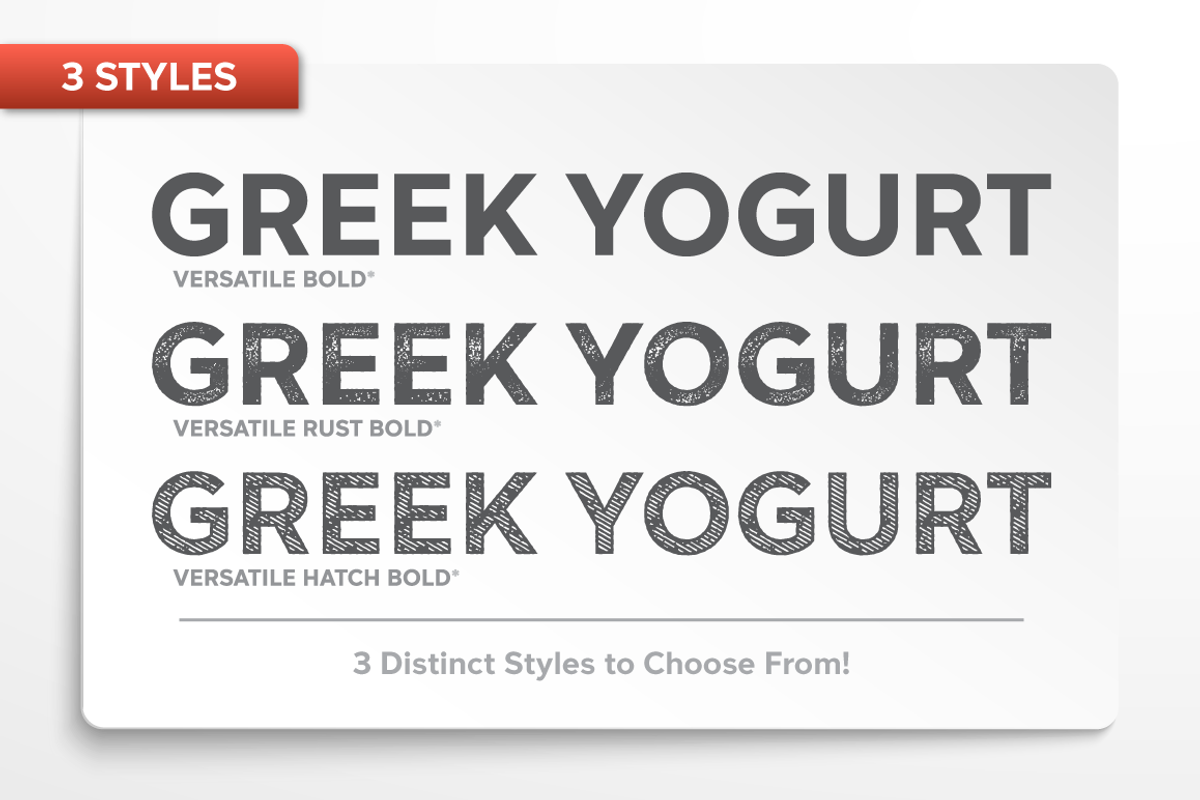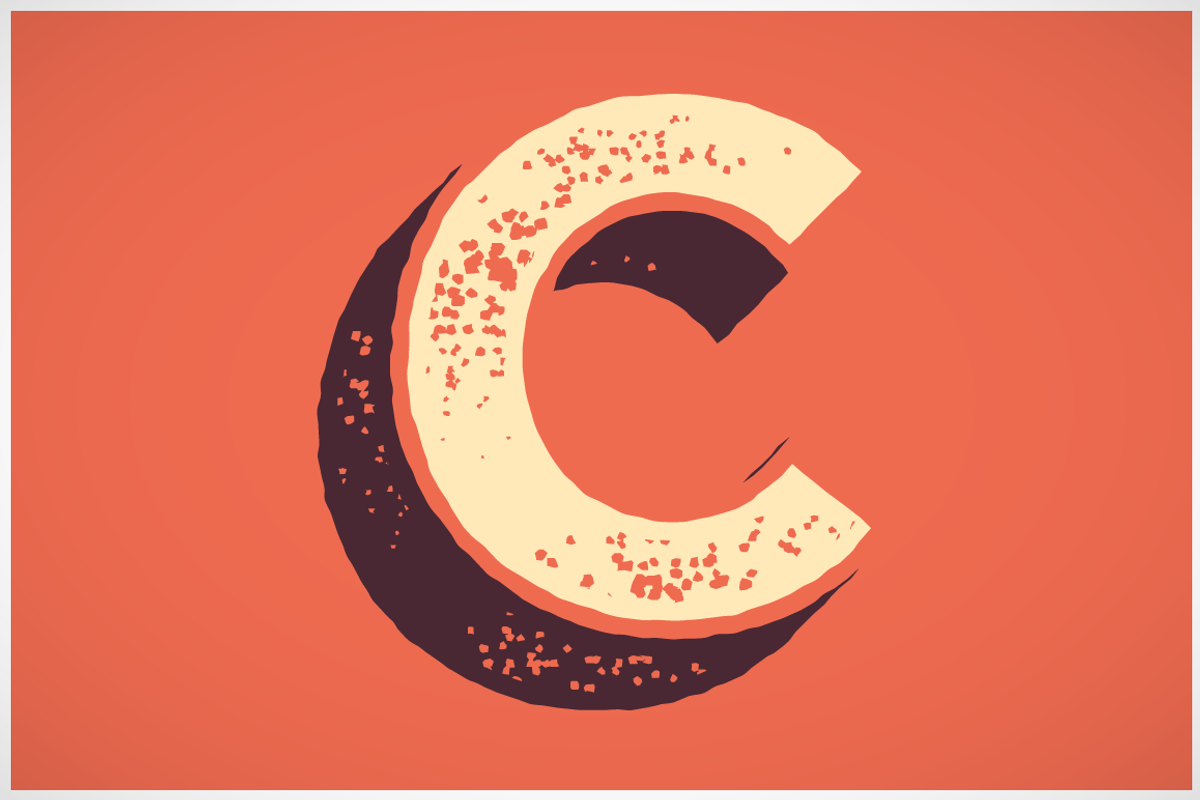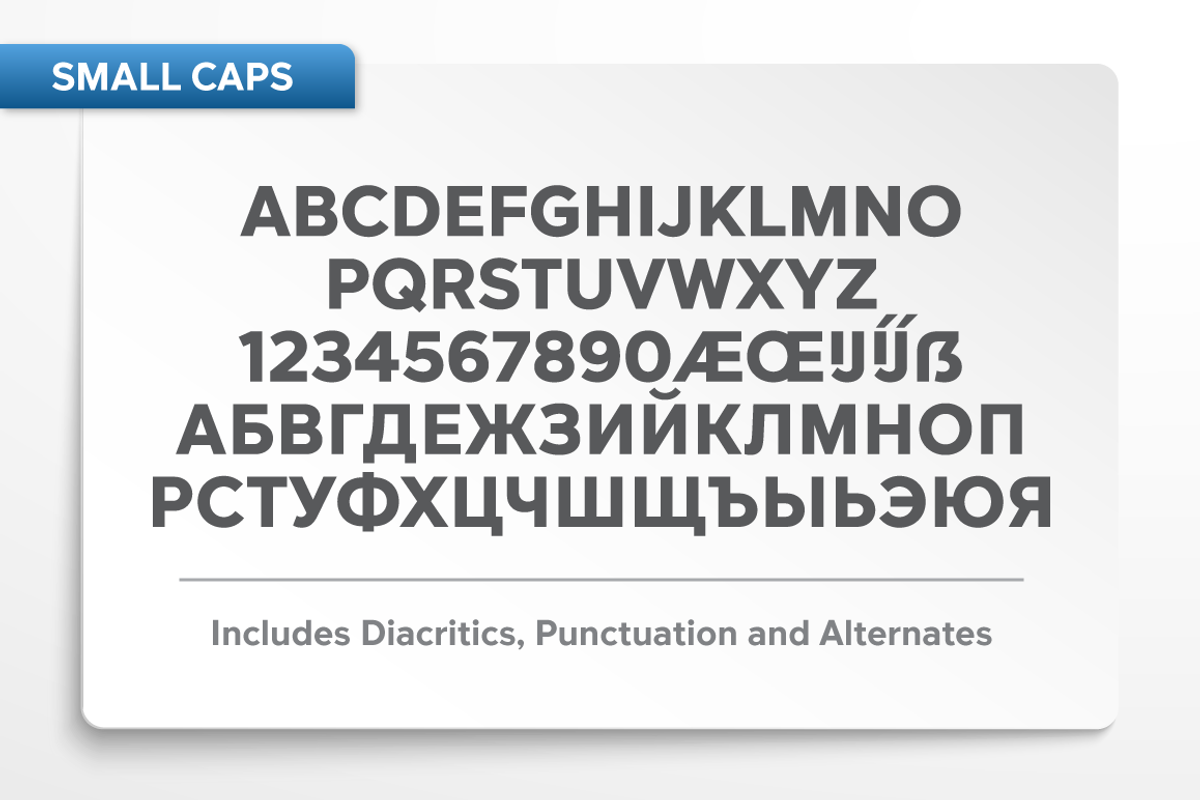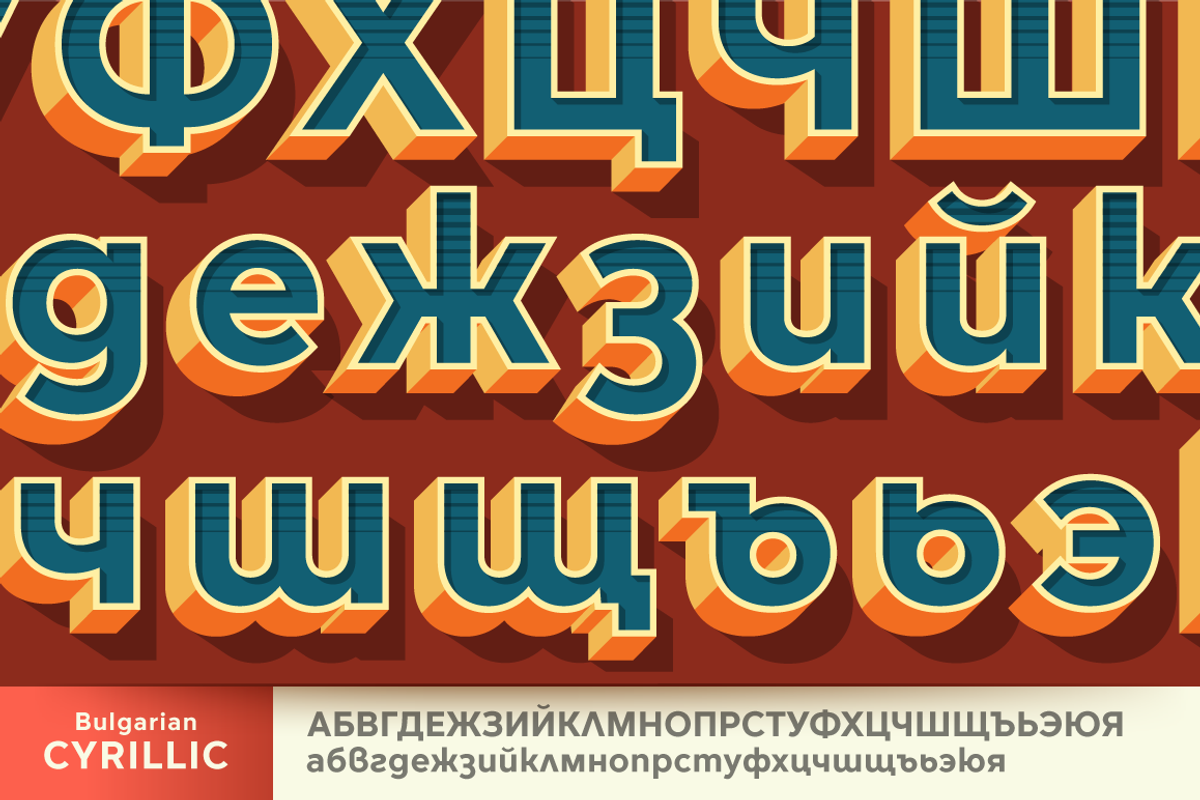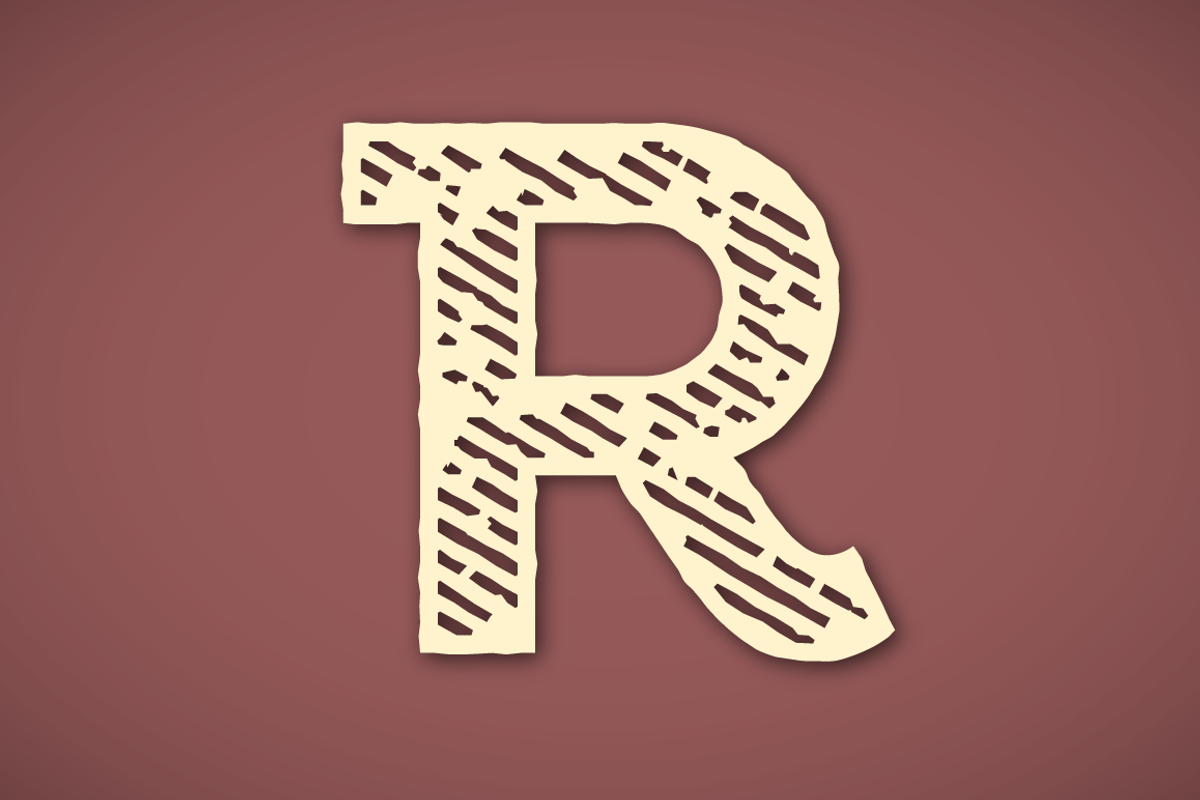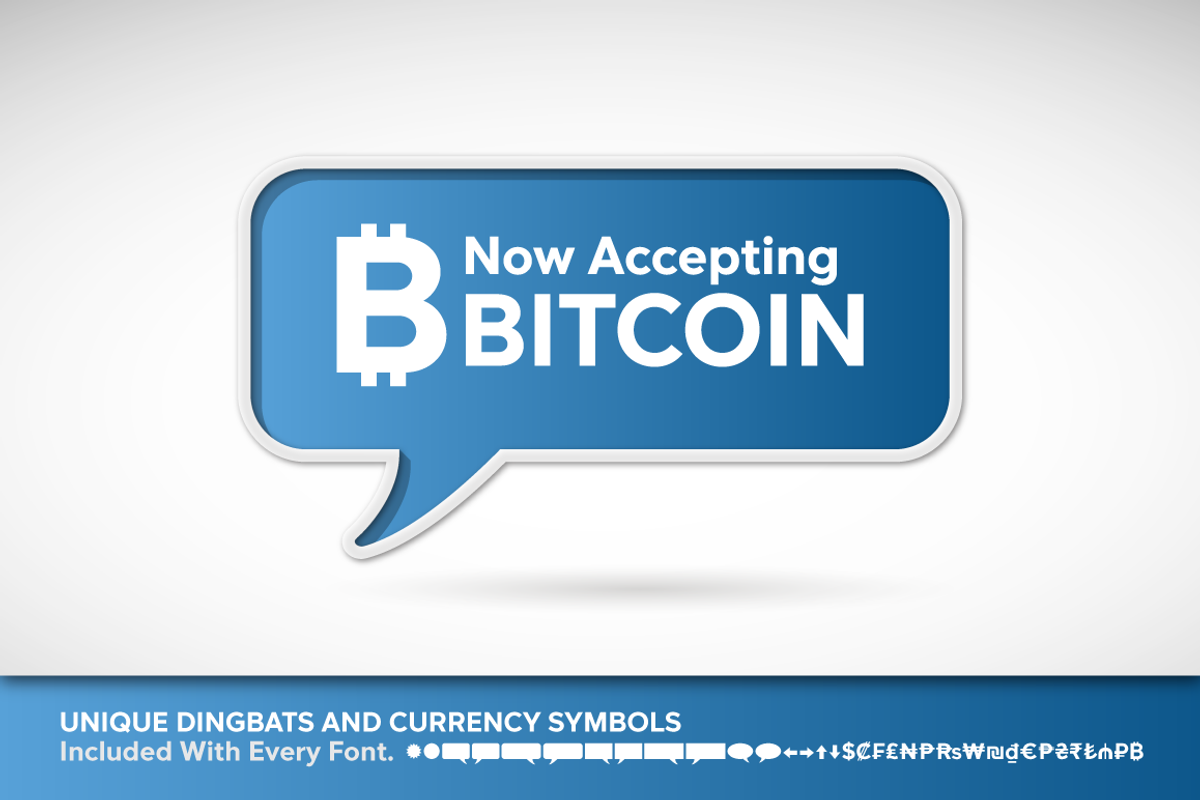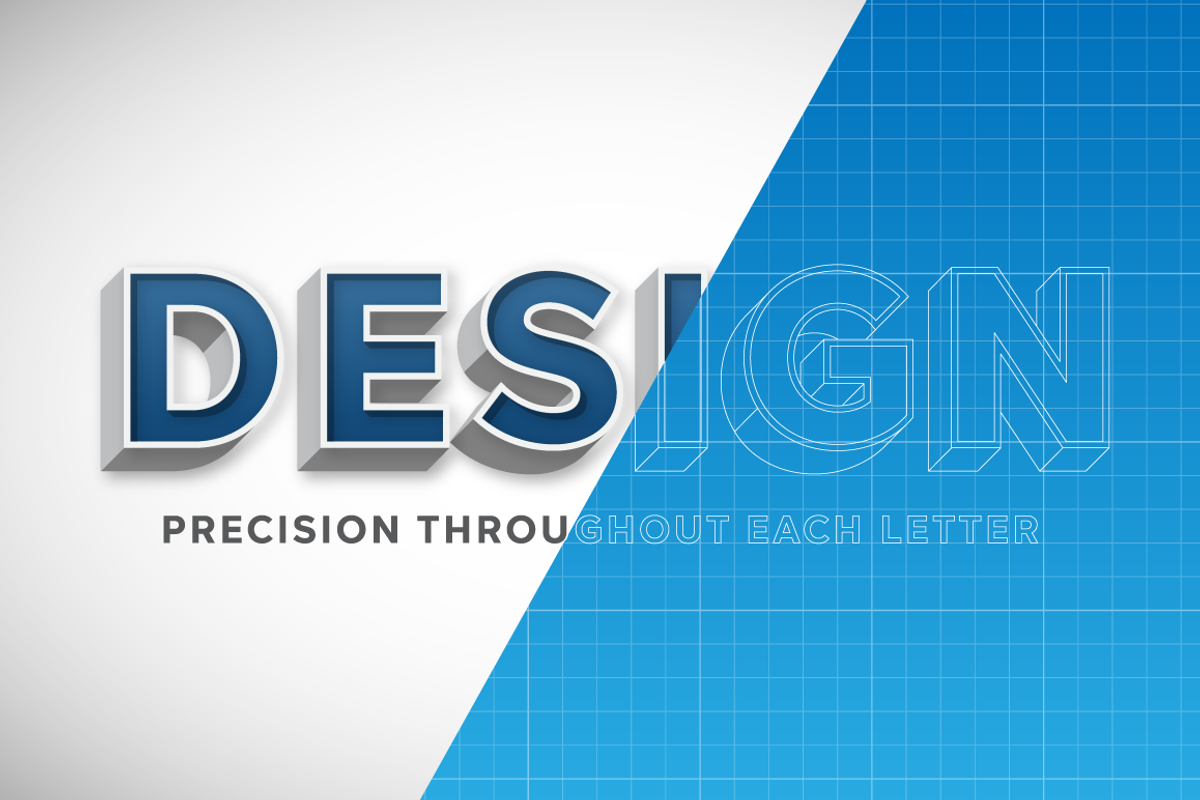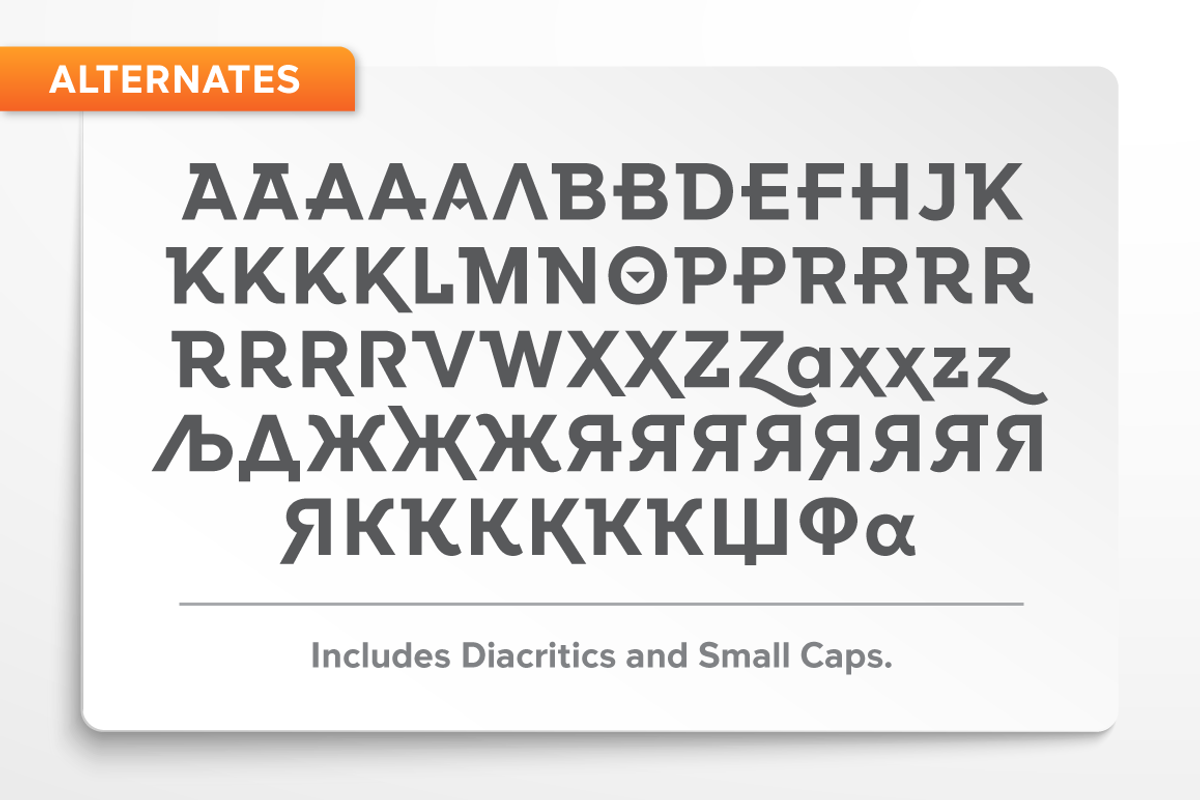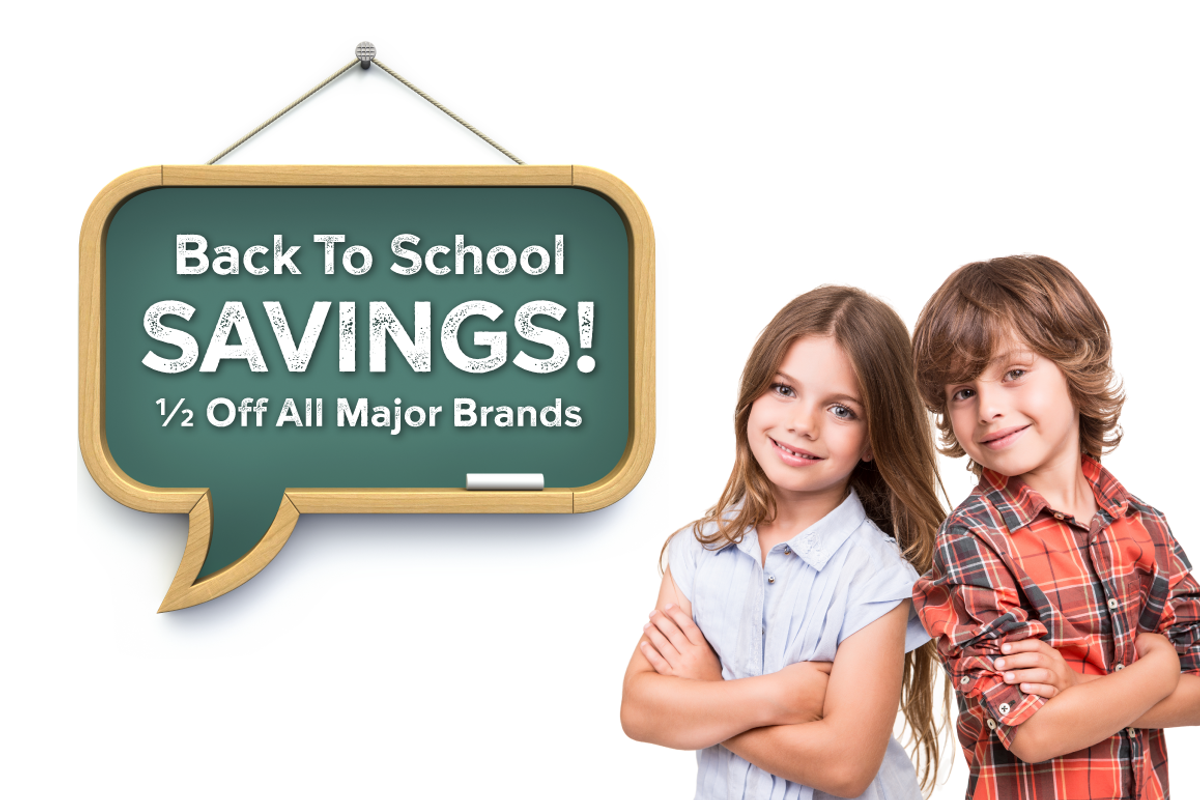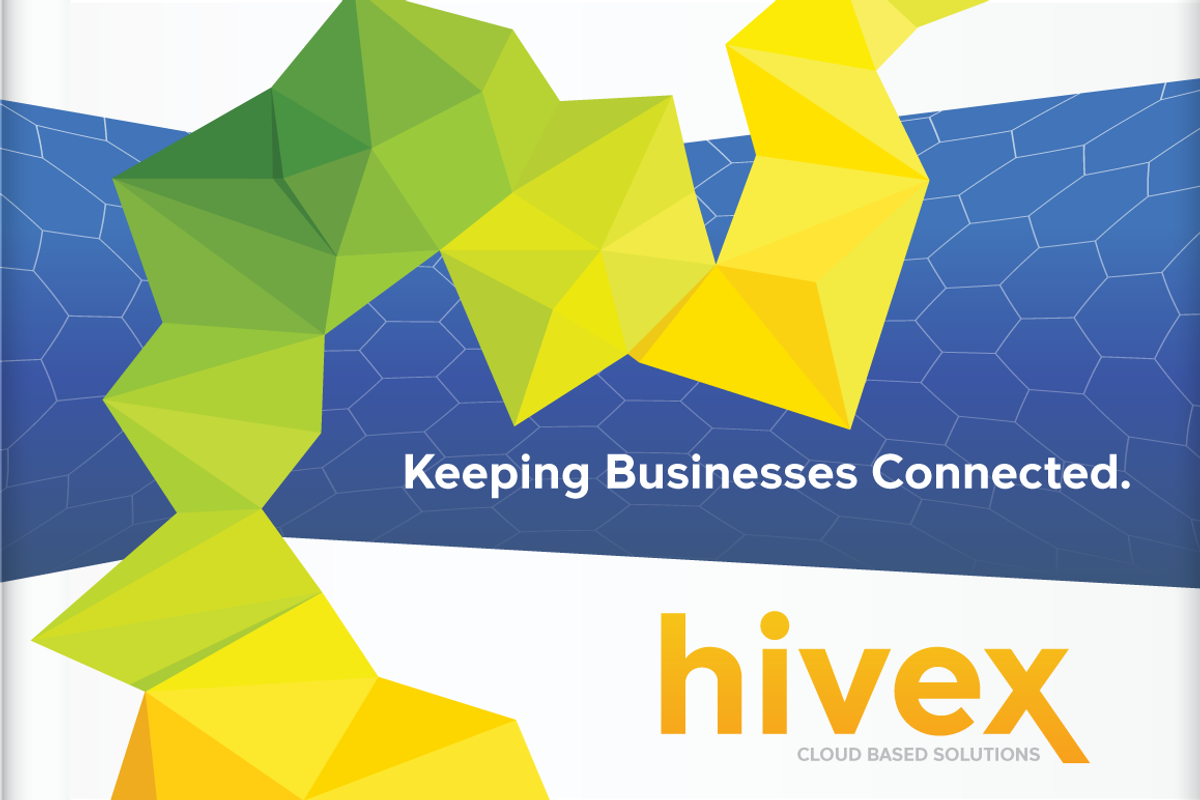
Versatile - 21 Font Designer Bundle!
From the designer who brought you the popular Desire font comes his latest creation, Versatile. Versatile is a designers dream come true. This modern Sans Serif font has everything you would want for making classic to modern style logos. Hundreds's of alternates (including small cap alternates!), massive language support, shadow layers for an insane amount of options and so much more!
Versatile Bold is the first entry into the Versatile type family of weights & italics from Borges Lettering. While other sans-serif fonts tend to be rigid and cold, Versatile stands out with it's warm and natural feel. It's generous x-height aids in its legibility and function, and the forms are modern yet classic allowing this font to live up to its name as a truly versatile workhorse for your next design or layout.
Versatile contains 3 different styles: Bold, Hatch and Rust. Each style contains one main font and six display sub-families which gives you the ability to stack seven layers to create interesting and eye-catching designs that will make your customers take notice. Playing with the different layers creates a vast array of design options.
Versatile Bold is not just for the Graphic Designer. It’s well suited for the Sign Maker, Cricut and Silhouette users, and anyone else who uses a vinyl plotter. It weeds beautifully in cut vinyl. Its different layers allow the user to stack multi-colored vinyl to create one a kind signs and displays.
Versatile is ideally suited for advertising and packaging, logo, branding and creative industries, poster and billboards, signage as well as web and screen design.
- Seven Fonts included in each style pack containing: Regular, Cast, Shadow, Highlight Shadow, Outline, Inside Shadow, and Lines for a total of 21 fonts!.
- 1,462 Glyphs (Characters) in each font for a total of 10,234 Glyphs per style pack.
- Languages supported including Cyrillic, Bulgarian Cyrillic and Greek.
- A massive library of Latin, Extended Latin and Cyrillic Alternates including their Diacritic and Small Cap counterparts.
- Superscripts, Subscripts, Numerators, Denominators, and Scientific Inferiors.
- Small Caps in Latin, Extended Latin and Cyrillic include Numbers, Punctuation, Diacritics and Alternates.
- Extended currency symbols including Bitcoin.
- Fun assortment of speech bubbles.
- Unlimited fractions.
- All 1,462 Glyphs have their display equivalents.
Versatile makes Typography fun!